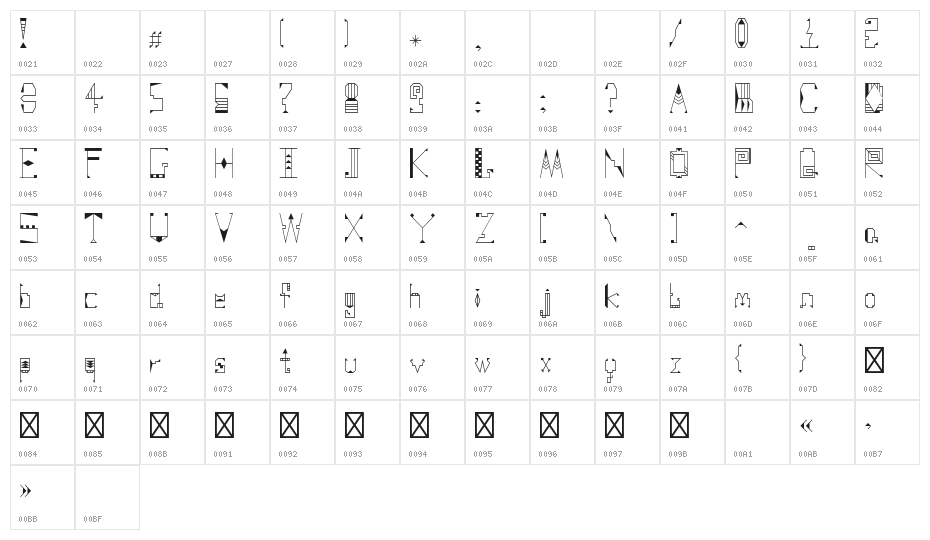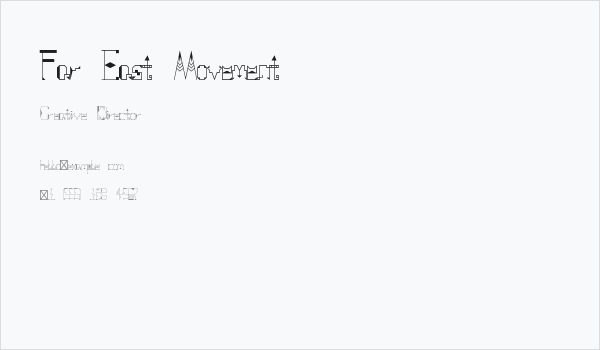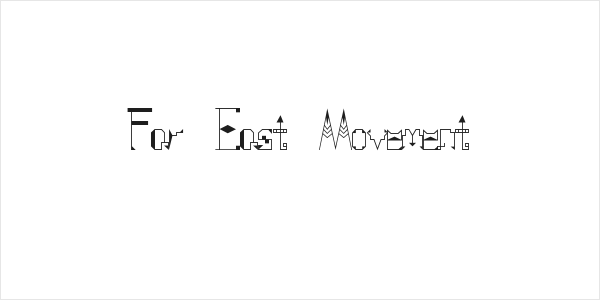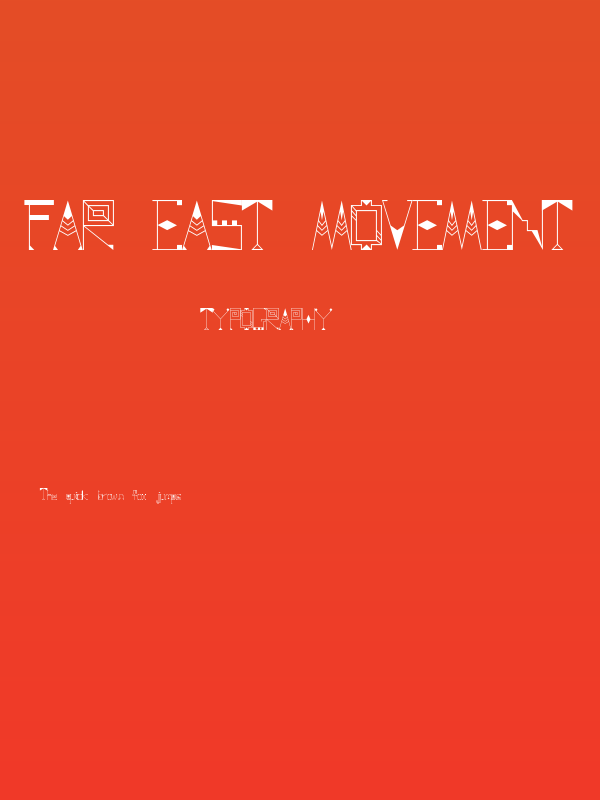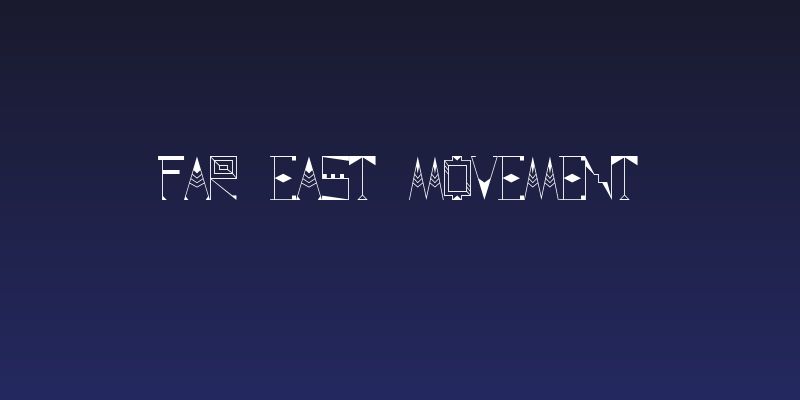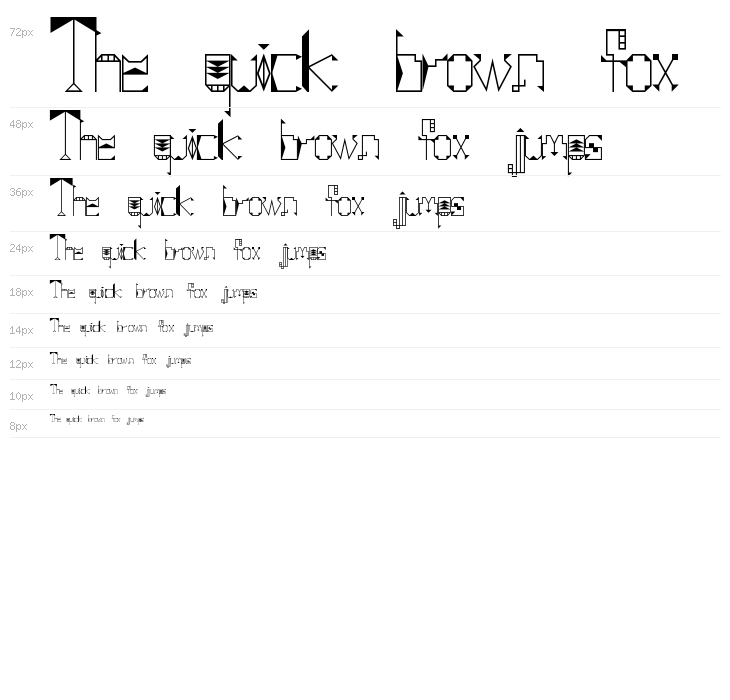
Far East Movement Font
Far East Movement Description
This font features a highly decorative and geometric style, characterized by intricate patterns and bold shapes. Each letter is uniquely designed with a combination of angular lines, zigzags, and abstract motifs, creating a visually striking appearance. The uppercase and lowercase letters maintain a consistent theme, with variations in complexity and form. Numbers and special characters are equally elaborate, incorporating similar geometric elements. The overall design is reminiscent of tribal or futuristic aesthetics, making it stand out in any visual context.
Proposed ProjectsIdeal for projects requiring a unique and eye-catching display, such as posters, album covers, or branding for creative industries.